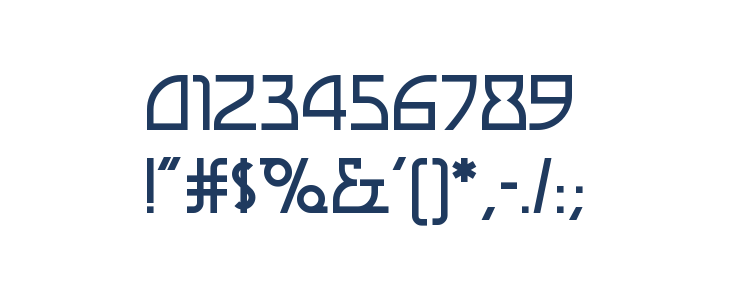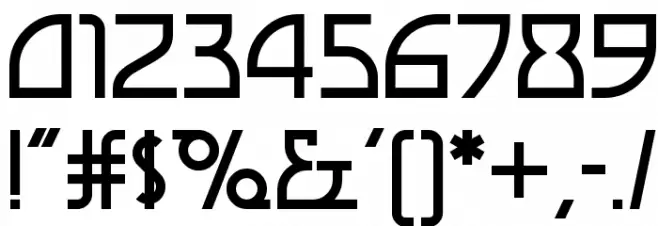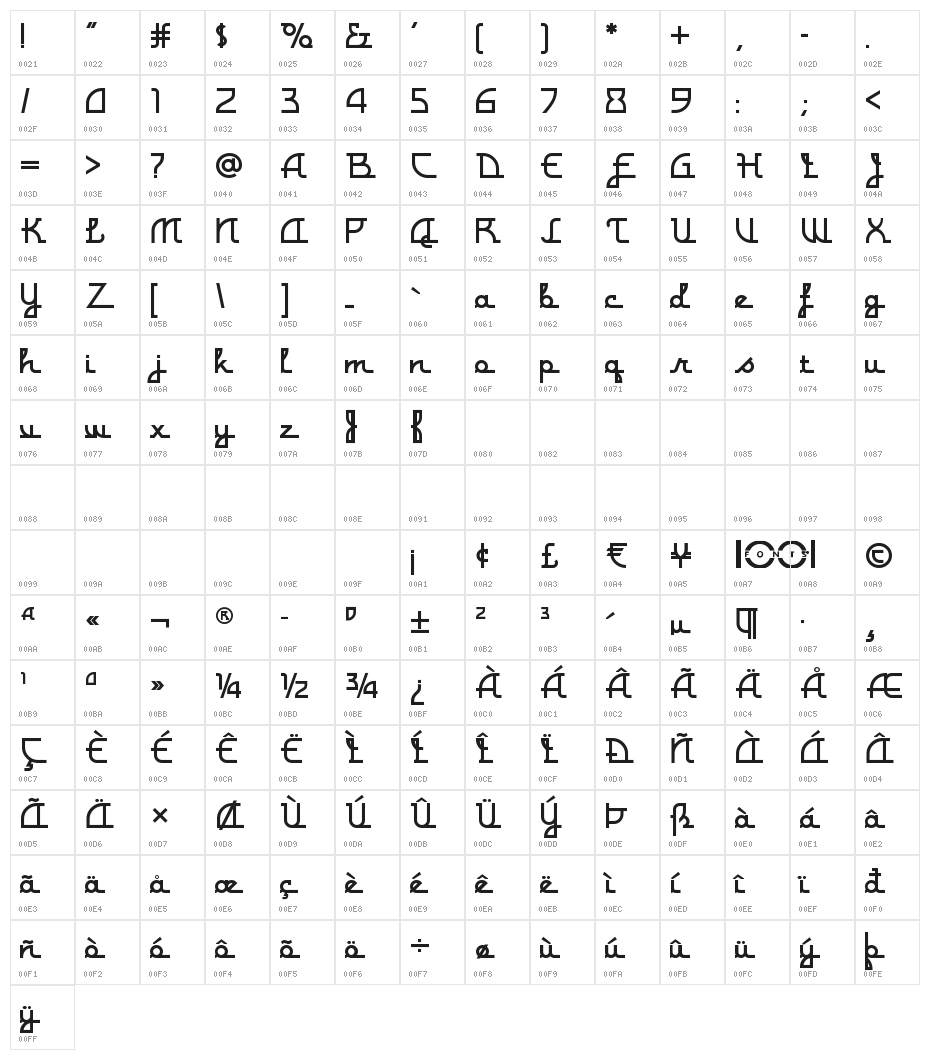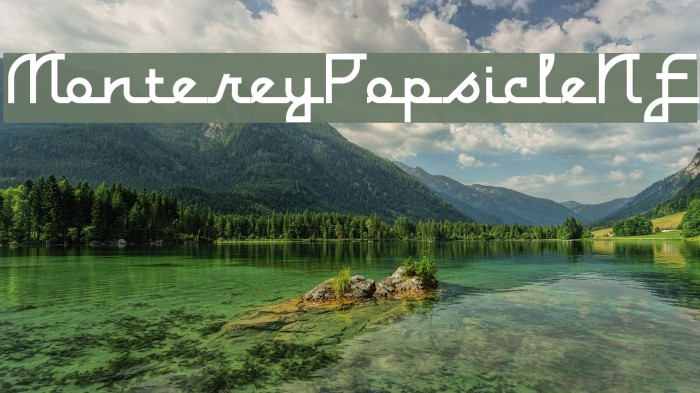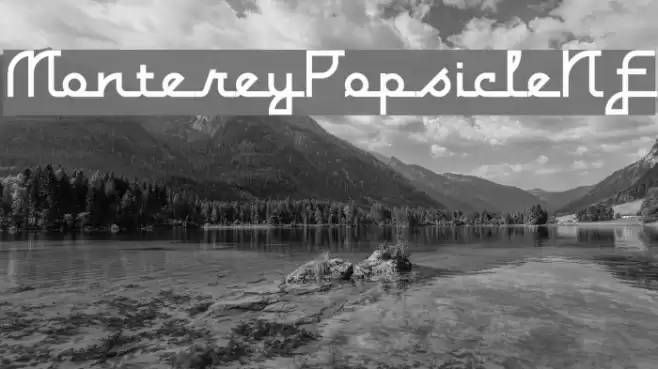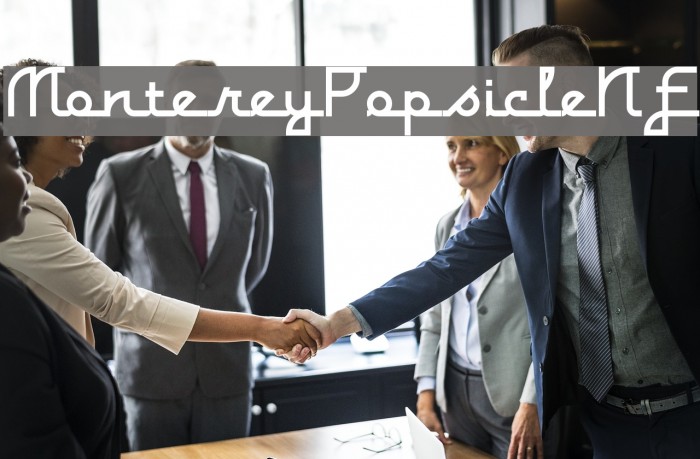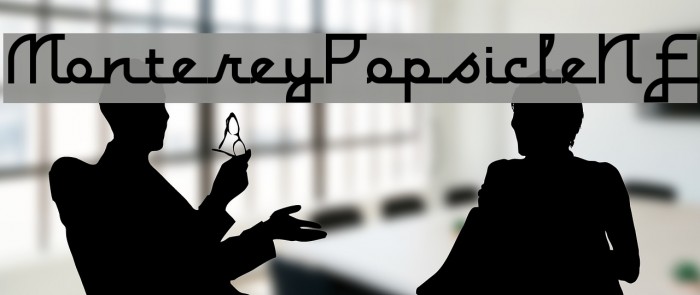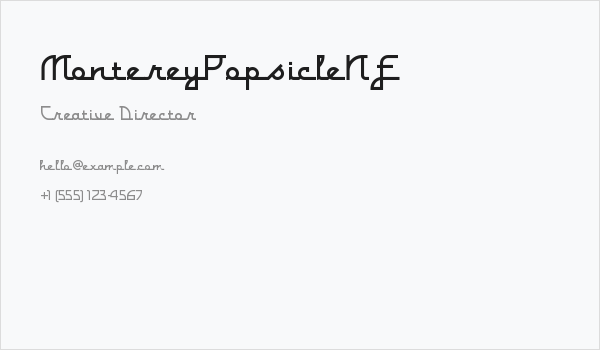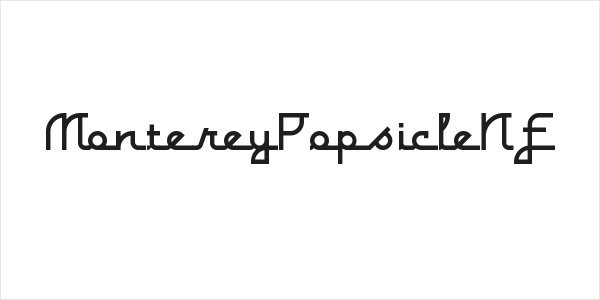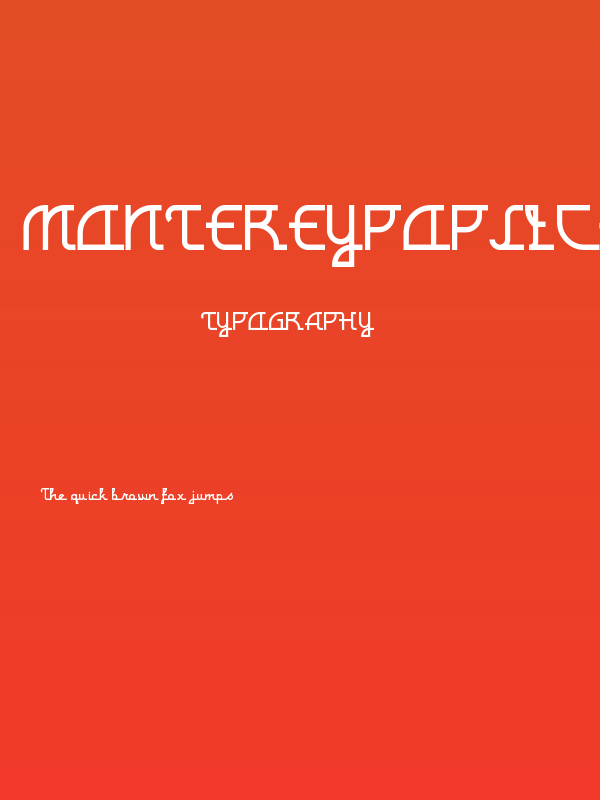
MontereyPopsicleNF Font
MontereyPopsicleNF Description
This font features a unique and playful design with a distinct geometric flair. The uppercase letters are characterized by bold, angular lines and unexpected curves, creating a sense of movement and energy. The lowercase letters maintain this playful style with a slightly more rounded approach, adding a touch of softness to the overall look. Numbers and special characters follow the same geometric theme, ensuring consistency across all elements. The font's design is both modern and retro, making it versatile for various creative projects.
| Overall Style | Modern, Retro |
| Proposed Projects | Ideal for branding, posters, album covers, and any project seeking a bold, artistic touch. |